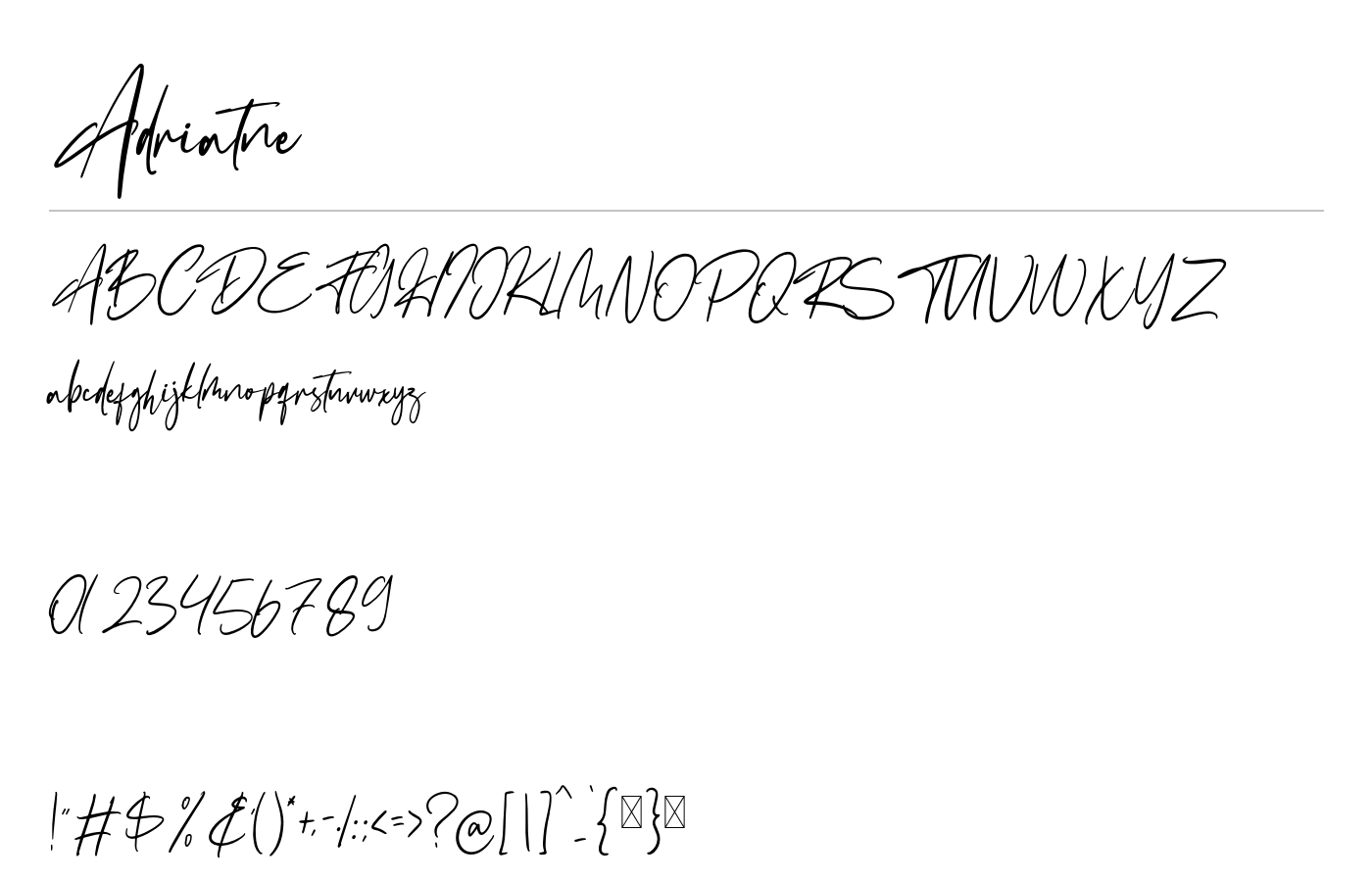
Adriatne is a slender, elegant script font that mimics natural, flowing handwriting with a modern touch. Its tall, narrow letterforms and delicate strokes give it a refined and personal feel, making it ideal for stylish branding, invitations, and creative projects that seek a sophisticated yet approachable look. This font works beautifully in logos and headlines where a graceful, artistic impression is desired.
Adriatne Font
About Adriatne Font
| Font family | Adriatne Font |
| Designer | Vultype Co |